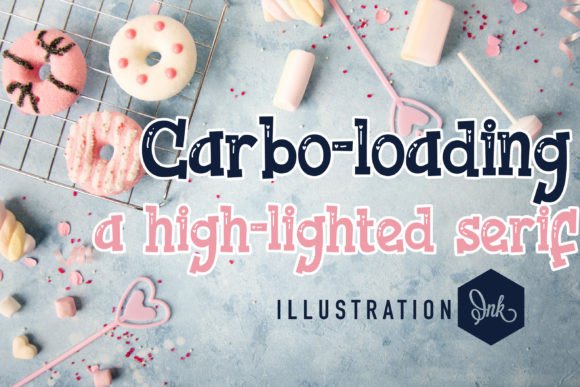
The Carbo-loading Font: A Hand-Crafted Serif for Creative Projects
I’ll never forget the time I was working on a project for a client who wanted a custom invitation for their wedding. I had spent hours searching for the perfect font, but nothing seemed quite right. That was until I stumbled upon the Carbo-loading Font, a beautiful hand-crafted serif that has since become a staple in my design toolkit.
As a designer, I’m always on the lookout for fonts that can add a personal touch to my projects. And that’s exactly what Carbo-loading Font offers – a unique, hand-crafted look that’s perfect for titles, displays, posters, and more.
What Makes Carbo-loading Font Special?
Carbo-loading Font is a hand-crafted serif font that has highlights throughout, giving it a distinctive look that’s both elegant and eye-catching. It’s often used for invitations, greeting cards, and other items where a personal touch is desired.
Here are some of the things I love about Carbo-loading Font:
• ✨ Unique, hand-crafted look that’s perfect for adding a personal touch to projects
• ✅ Extensive character set, including support for multiple languages
• ✅ OpenType features, including glyphs and stylistic alternates
While Carbo-loading Font is an excellent choice for many projects, it’s not without its quirks. Here are a few things to keep in mind:
• ⚠️ Some users may find the font a bit too ornate for certain projects
• 🤔 Limited suitability for body text, due to its decorative nature
The Story Behind Carbo-loading Font
Carbo-loading Font was designed by a team of typographers who wanted to create a font that would evoke the feeling of hand-crafted elegance. The font is inspired by traditional calligraphy and lettering techniques, but with a modern twist.
What is Carbo-loading Font? Carbo-loading Font is a hand-crafted serif font with highlights throughout, perfect for titles, displays, posters, and more.
Is Carbo-loading Font suitable for body text? While Carbo-loading Font is highly legible, it’s primarily designed for display use. For body text, you may want to consider a more traditional serif font.